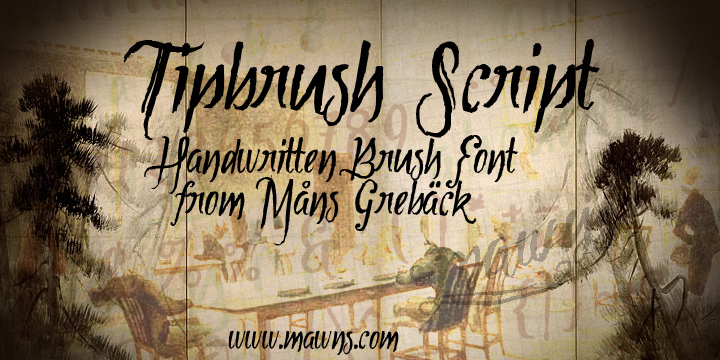
Tipbrush Script Slanted Italic by Måns Grebäck is a free brush script with a fast, sharply angled stance. Long sweeping joins meet narrow, pointed strokes, and the rough edges make the lettering feel freshly painted rather than carefully polished.
On posters and album covers, its oversized gestures can become part of the main artwork. Fashion branding and event graphics also suit the dramatic movement, with the dry-brush texture echoing ink splashes, torn paper, or energetic photography.